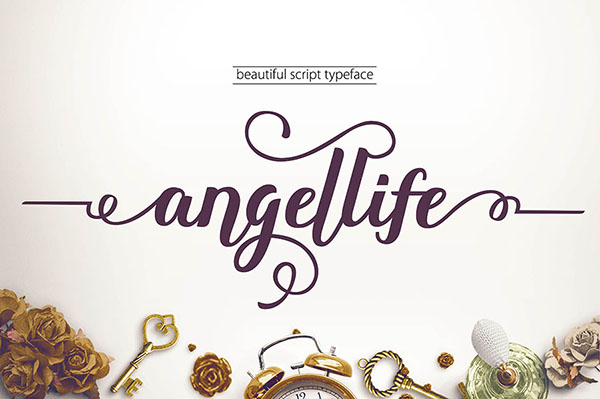
Latest Script Fonts Download Free
If you want to create professional printout, you should consider a commercial font. New fonts are added daily. Use it for branding, social media, magazines, and any other design where bold typography is needed.
Bogam € by zea fonts. Enter your email to download your free font. Peterbuilt font (free) the peterbuilt font is a great bold script font that can be used in personal and commercial projects.
Script typefaces are based upon the varied and often fluid stroke created by handwriting, pretty much like the cursive fonts just typically more elegant. Go ahead, scroll down, and start downloading. This collection includes the best free display fonts, block fonts, geometric fonts, decorative fonts, and much more to match any kind of design project you’re working on.
Some of today’s most popular typefaces are cursives (also known as scripts). Newest free fonts are available free download for commercial and personal use. Click to find the best 739 free fonts in the bold script style.
With pretty swirls and elegant strokes. Lynchburg script font free download. Today we have collected 20 elegant bold script fonts.
Free designs / 113 latest free fonts collection. Lynchburg script font perfect for packaging, branding, invitations, or even as a headline. 624 professional script fonts to download.